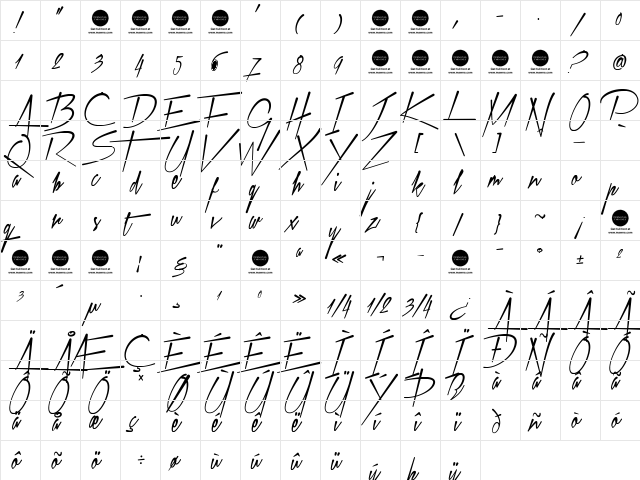
Xtreem Medium Demo Regular
Design Context for Xtreem Medium Demo Typeface
Xtreem Medium Demo is a composed and adaptable typeface that performs quietly and consistently across a wide range of design contexts.